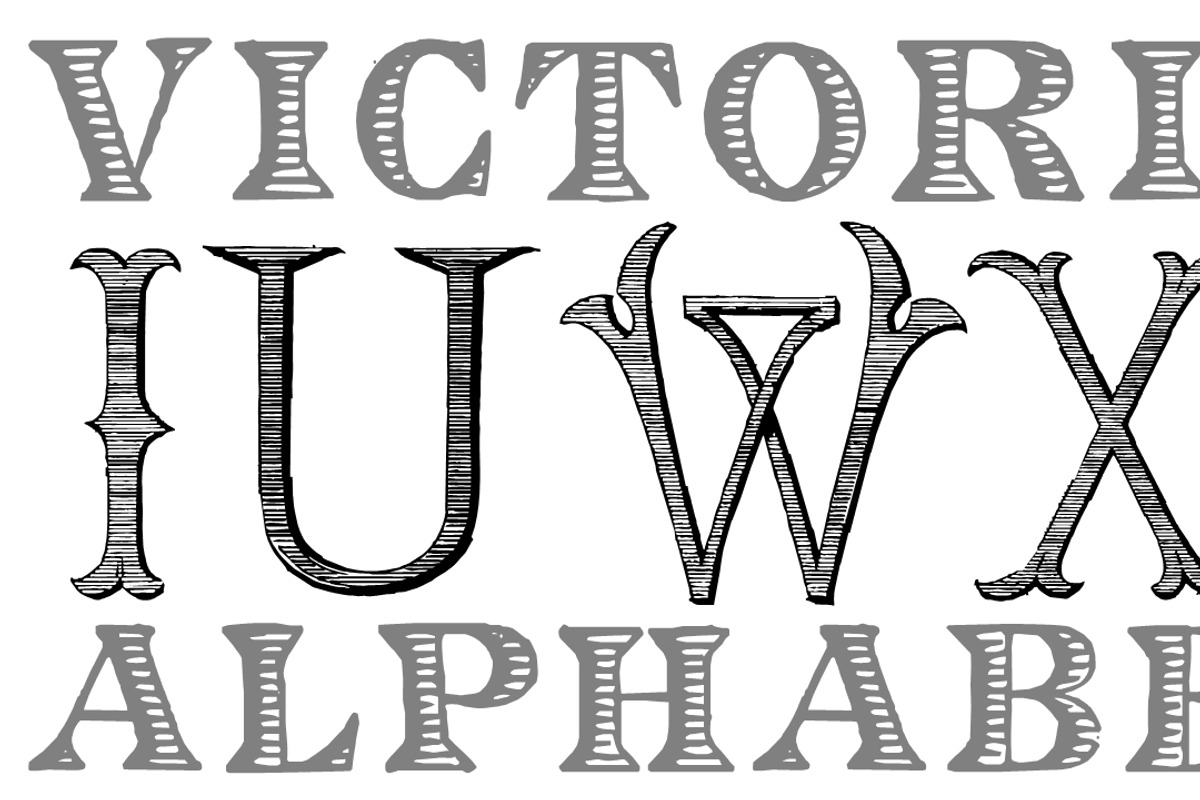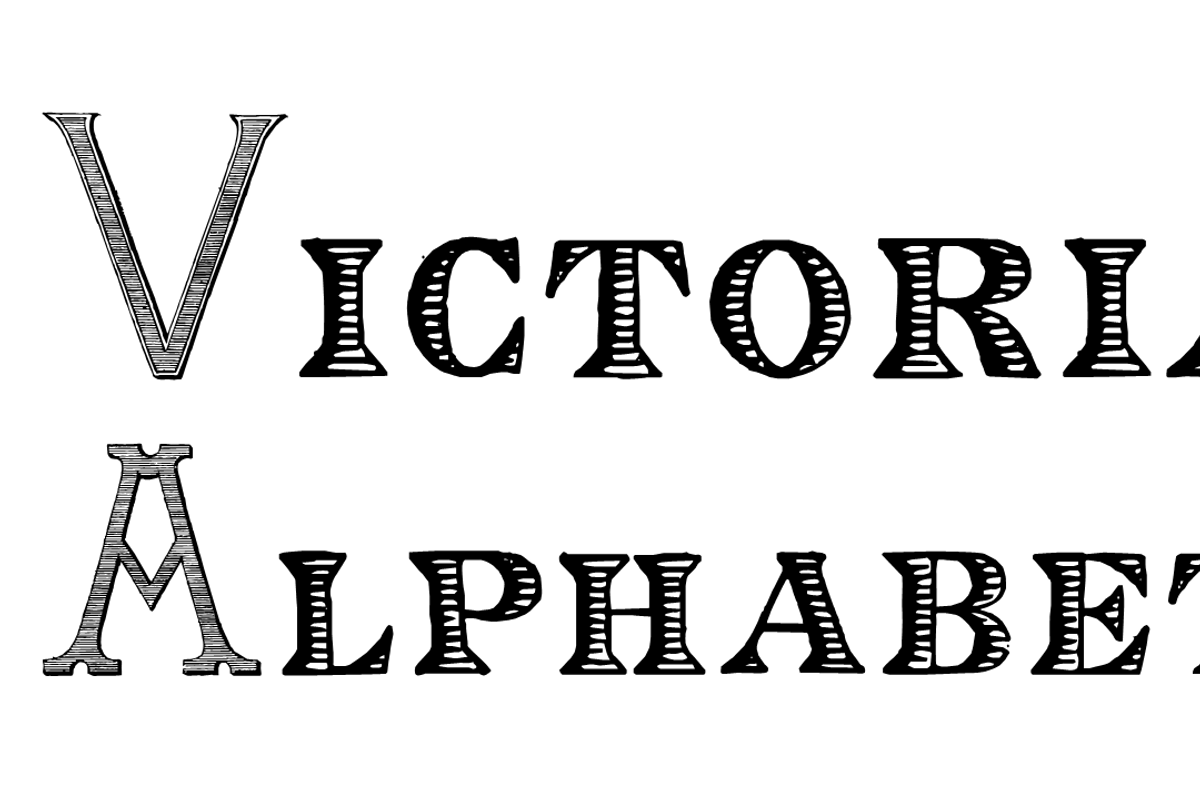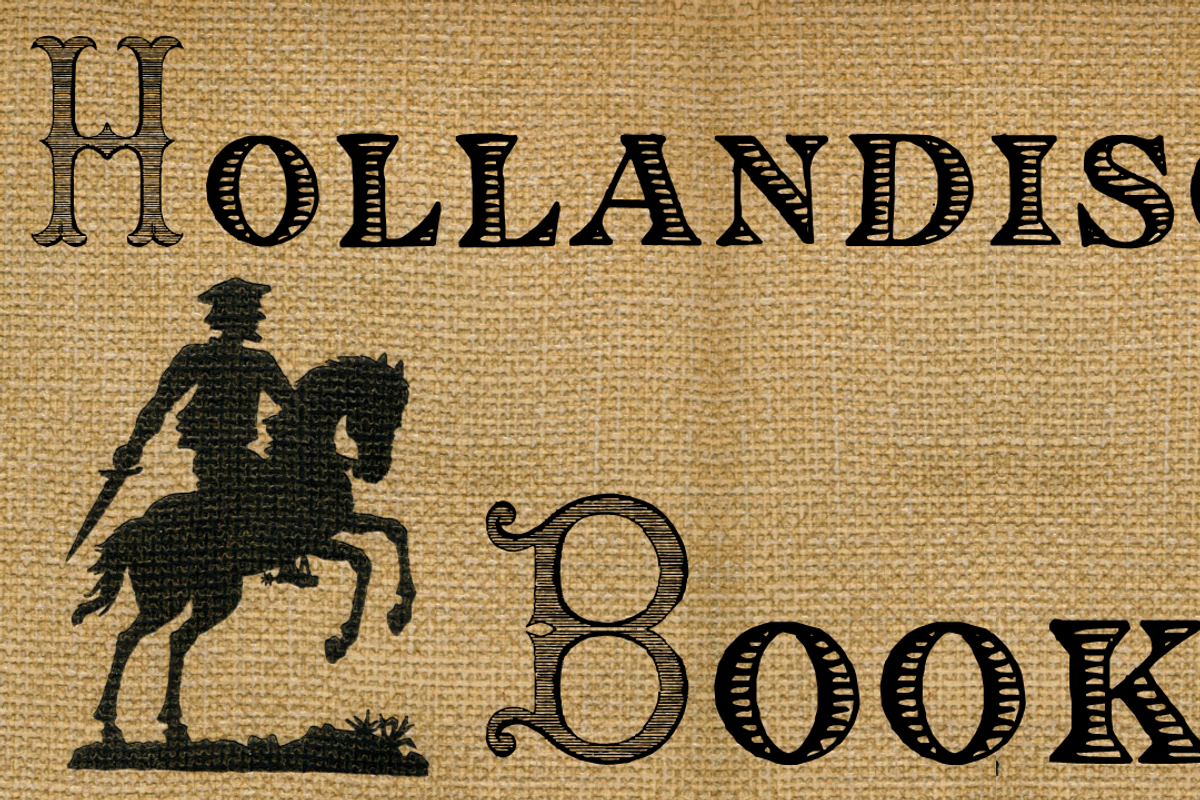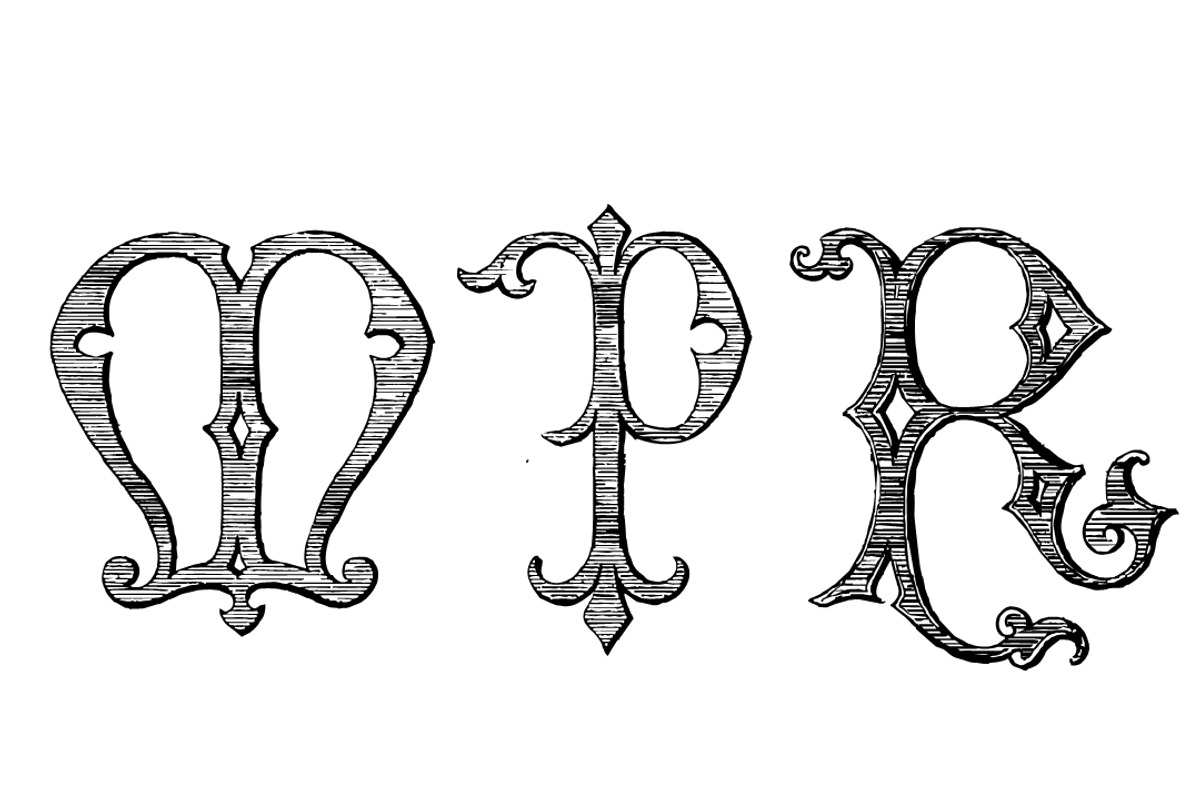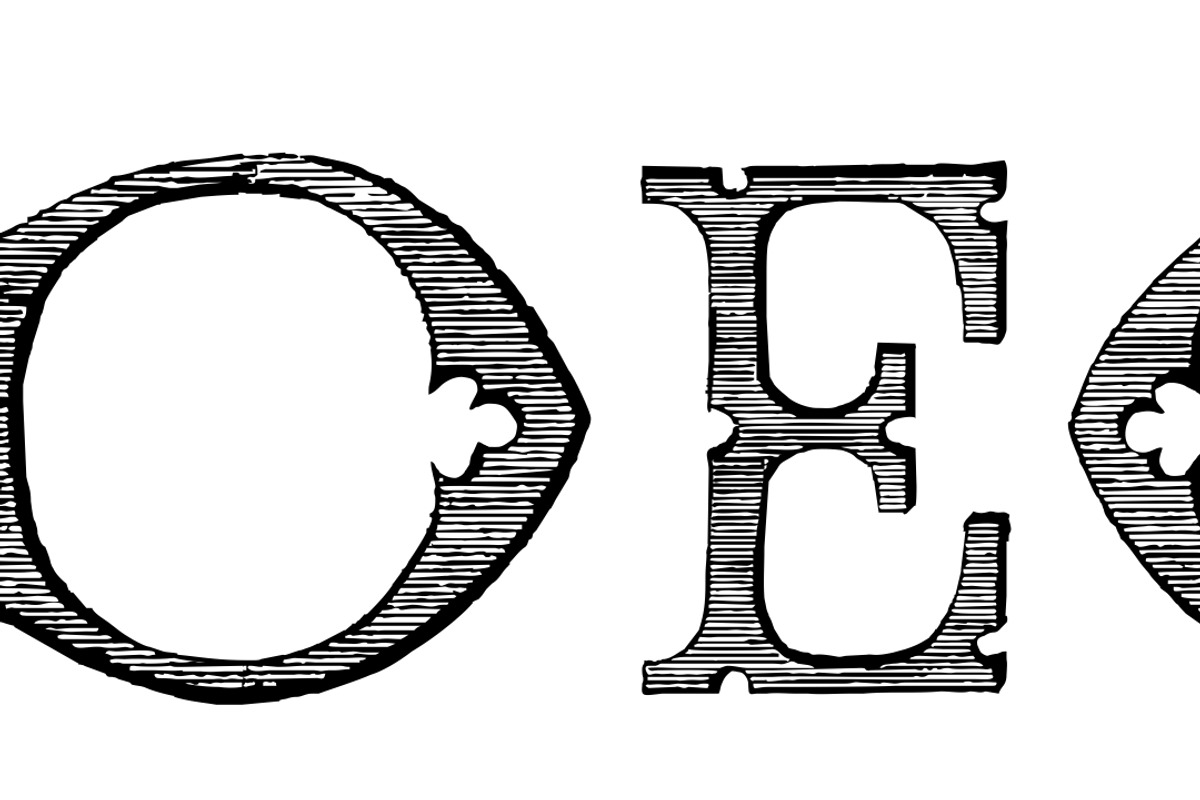
Victorian Alphabets
Victorian Alphabets is a incoming family of complete victorian style alphabets, researched and developed upon a comprehensive number of vintage books, magazines and catalogues from XIX century. A partnership font between Intellecta Design and Monocracy Types (Paulo W). Also you can take a look, too, in our massive collection of victorian monograms, here : https://creativemarket.com/Paulow/9871-Intellecta-Monograms-Collection